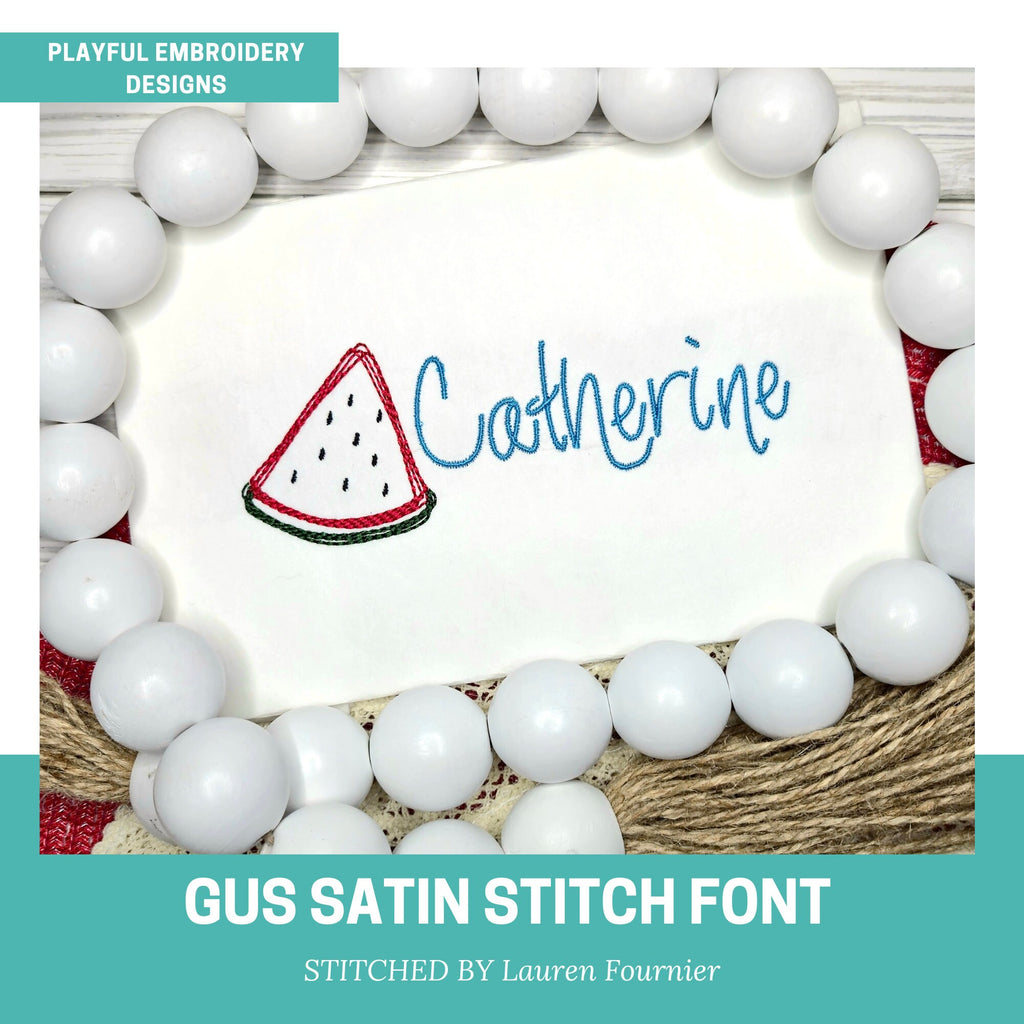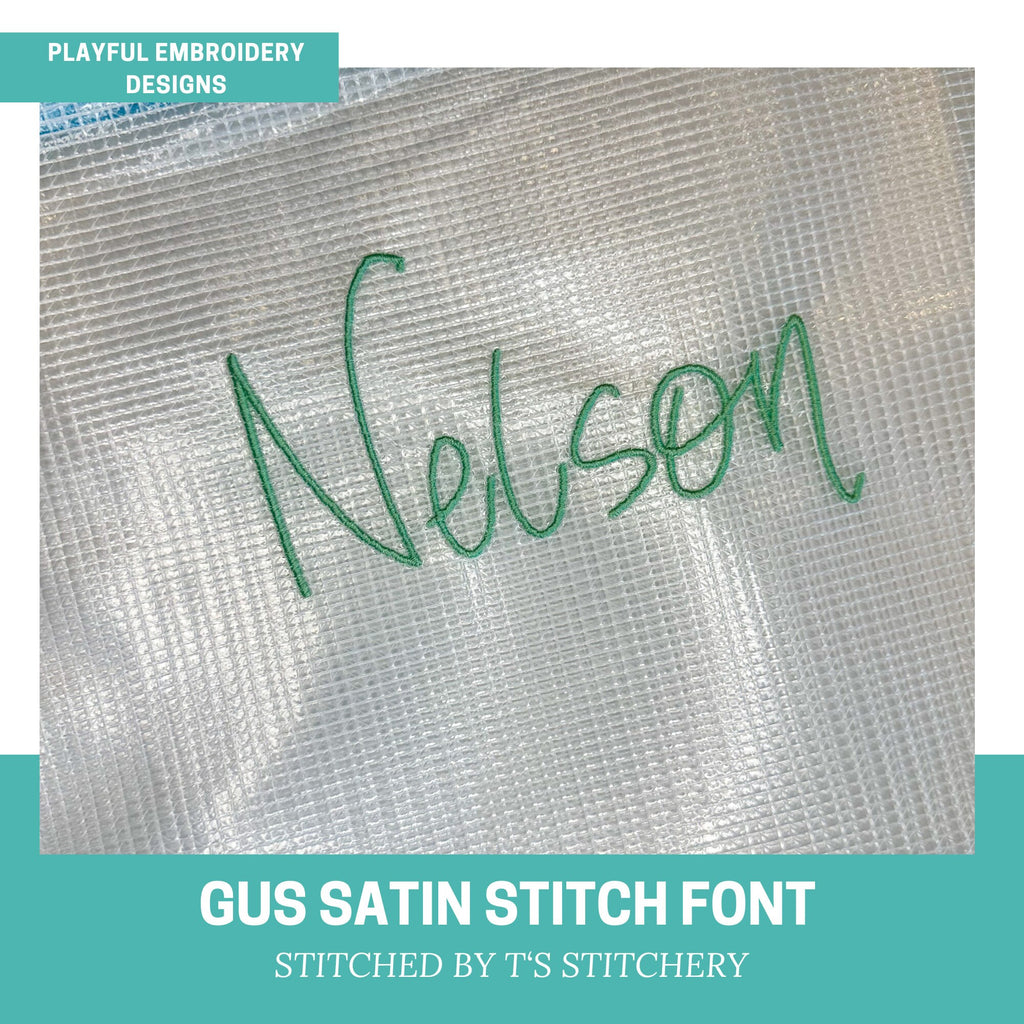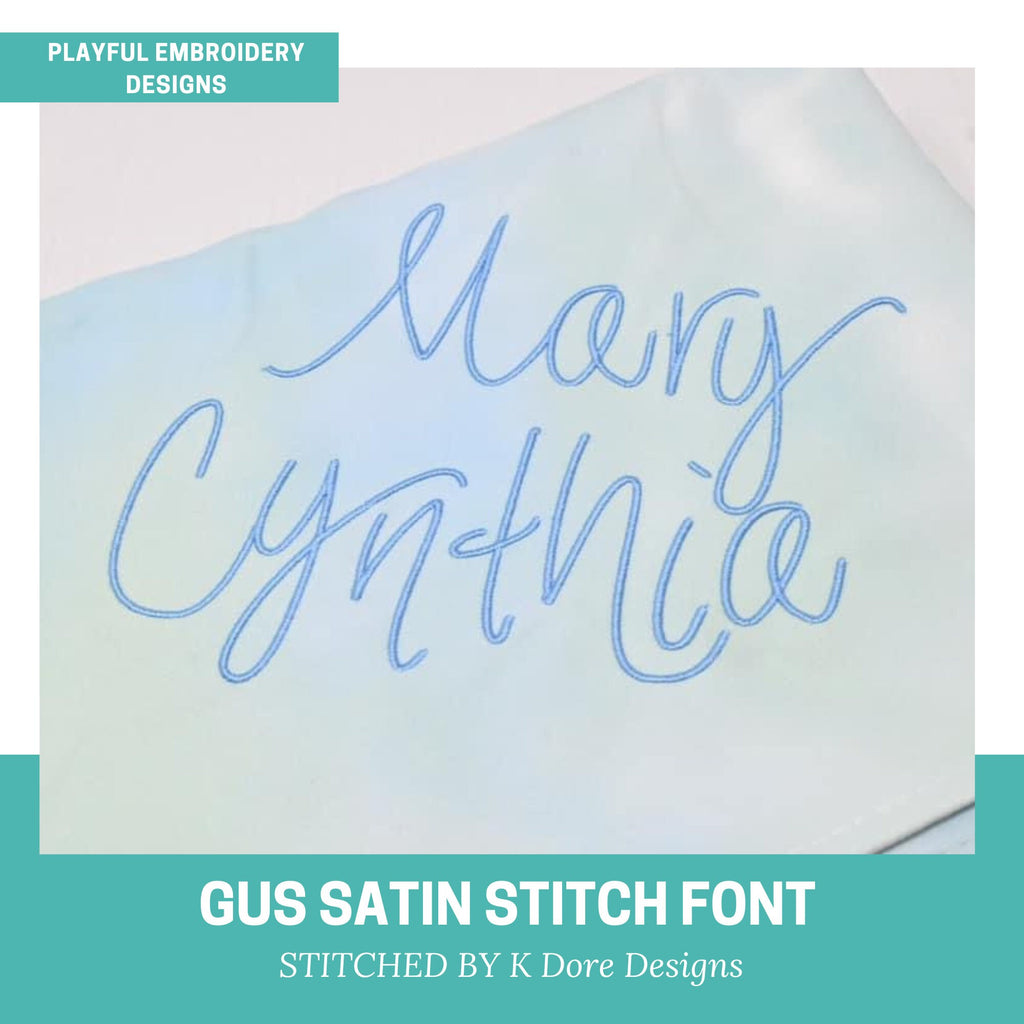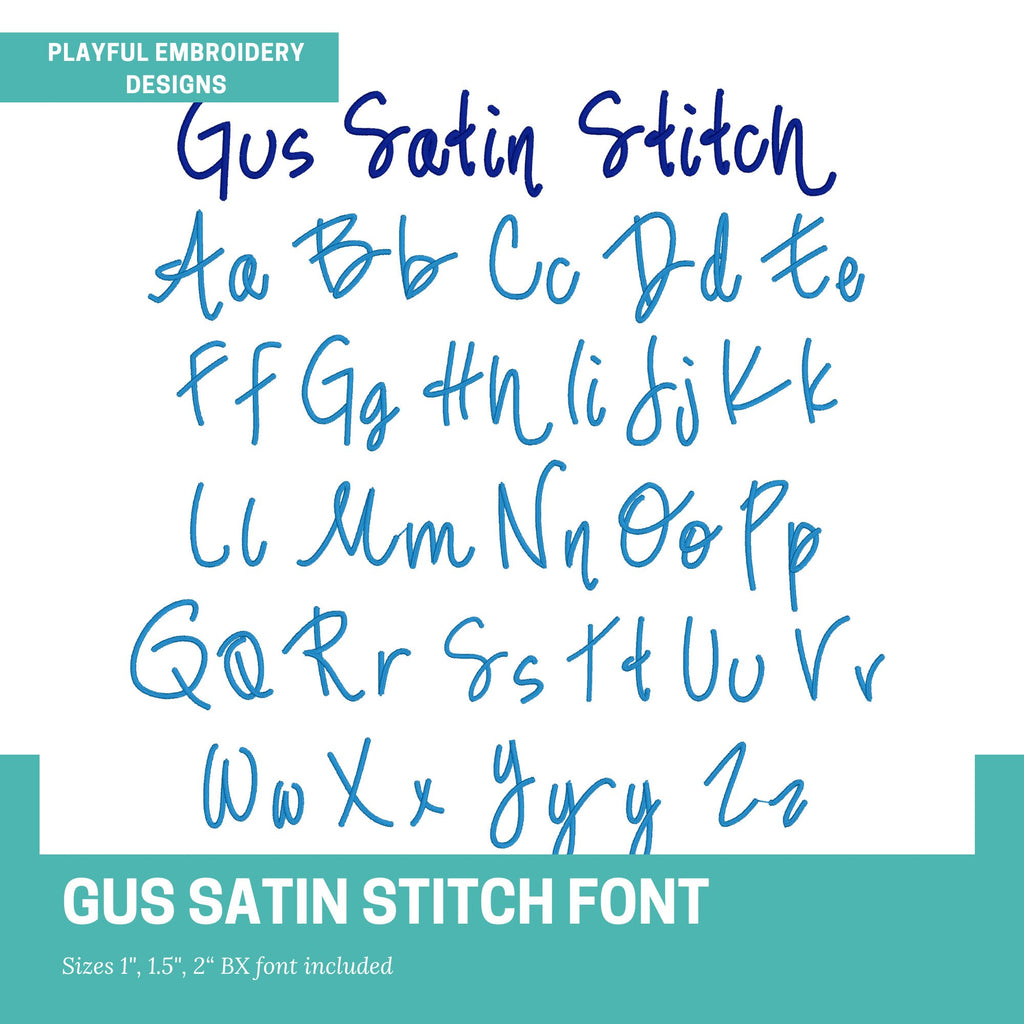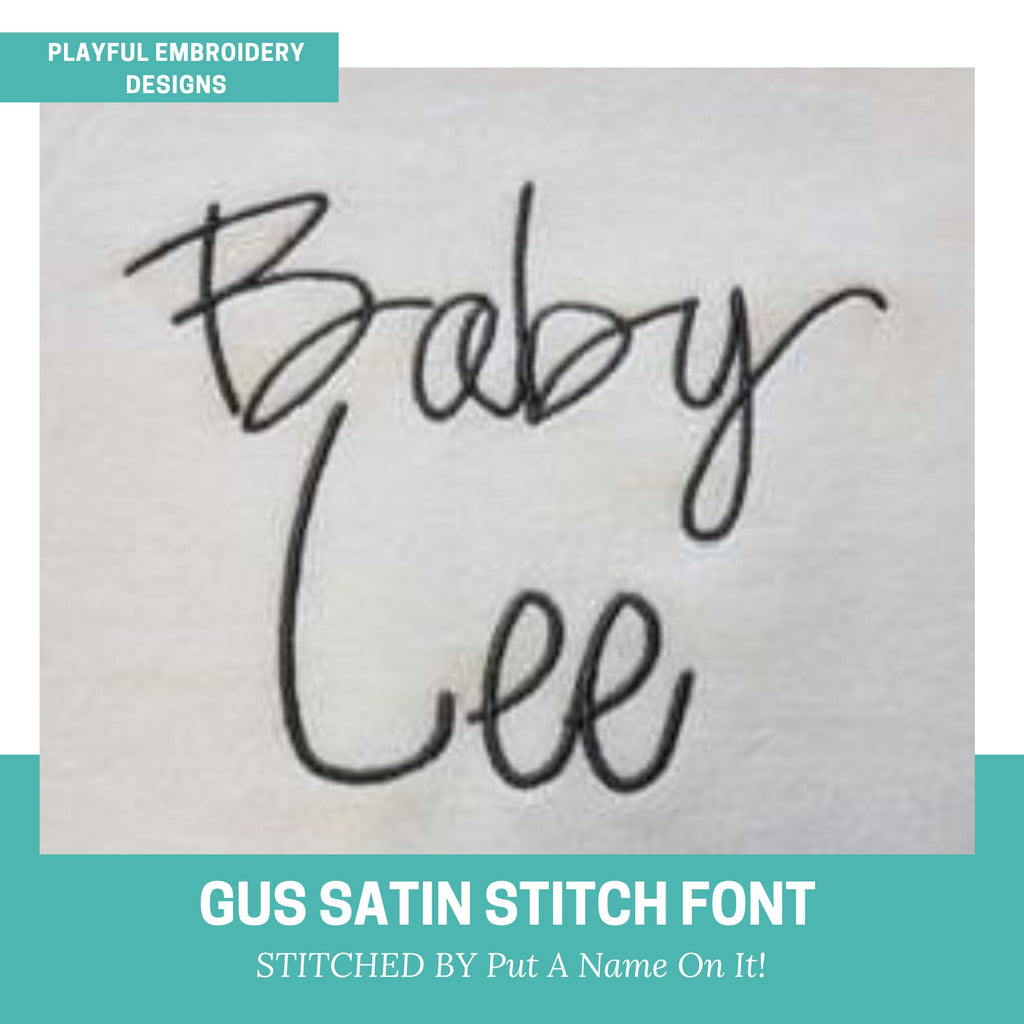
The Gus Satin Stitch Embroidery Font, Handwriting Machine Embroidery Font, Playful Embroidery font, 1", 1.5", 2" font size
Introducing the Gus satin stitch handwriting machine embroidery font. This fun and playful font is perfect for children's and baby items or anything you want a handwritten look. Created after my own handwriting style.
Each size includes 53 letters. One y with a long swish for end of words and one y (saved as !) for middle of the word with a shorter swish. *** for the bx font use ! for a middle of the word letter y.